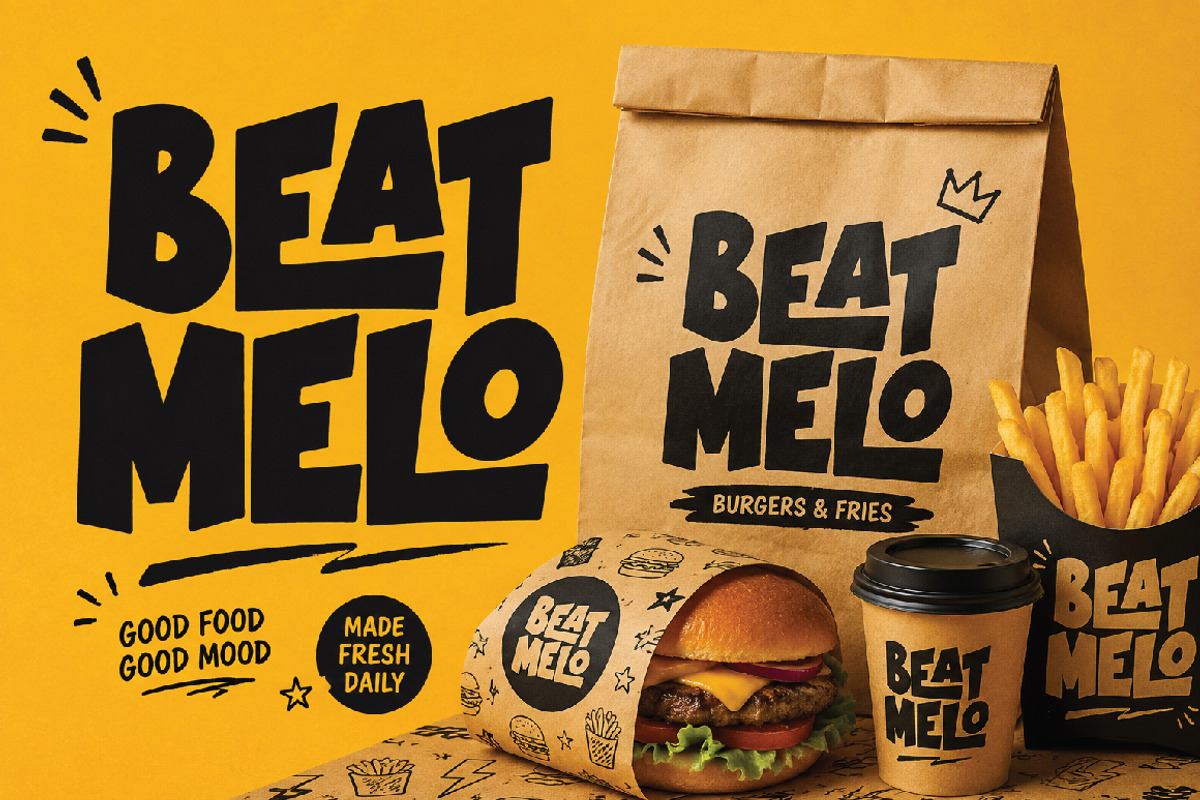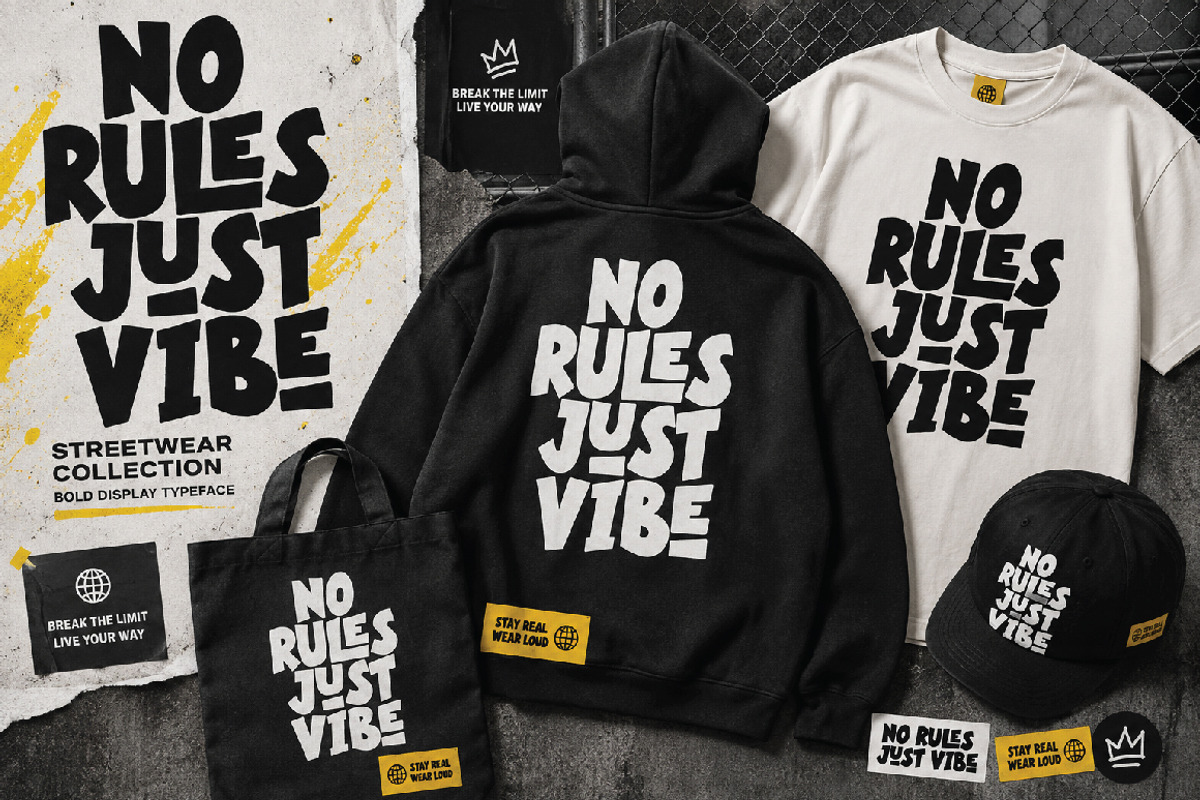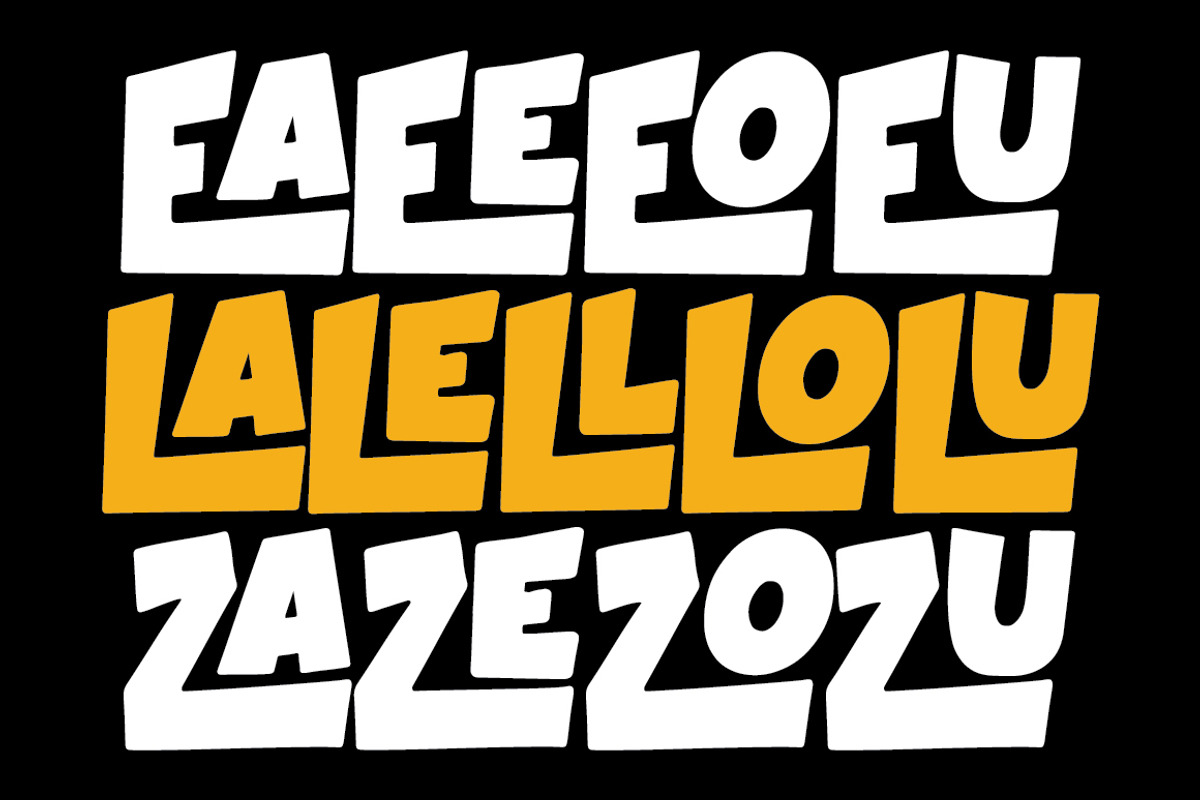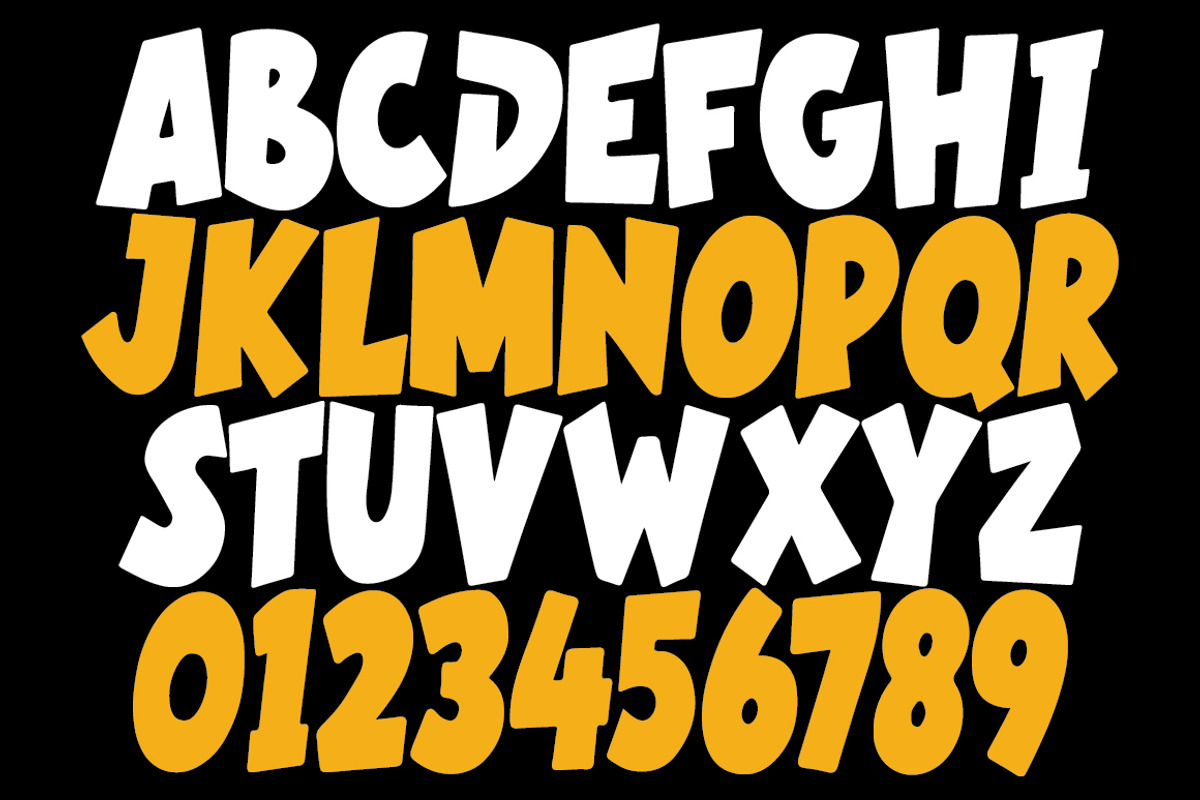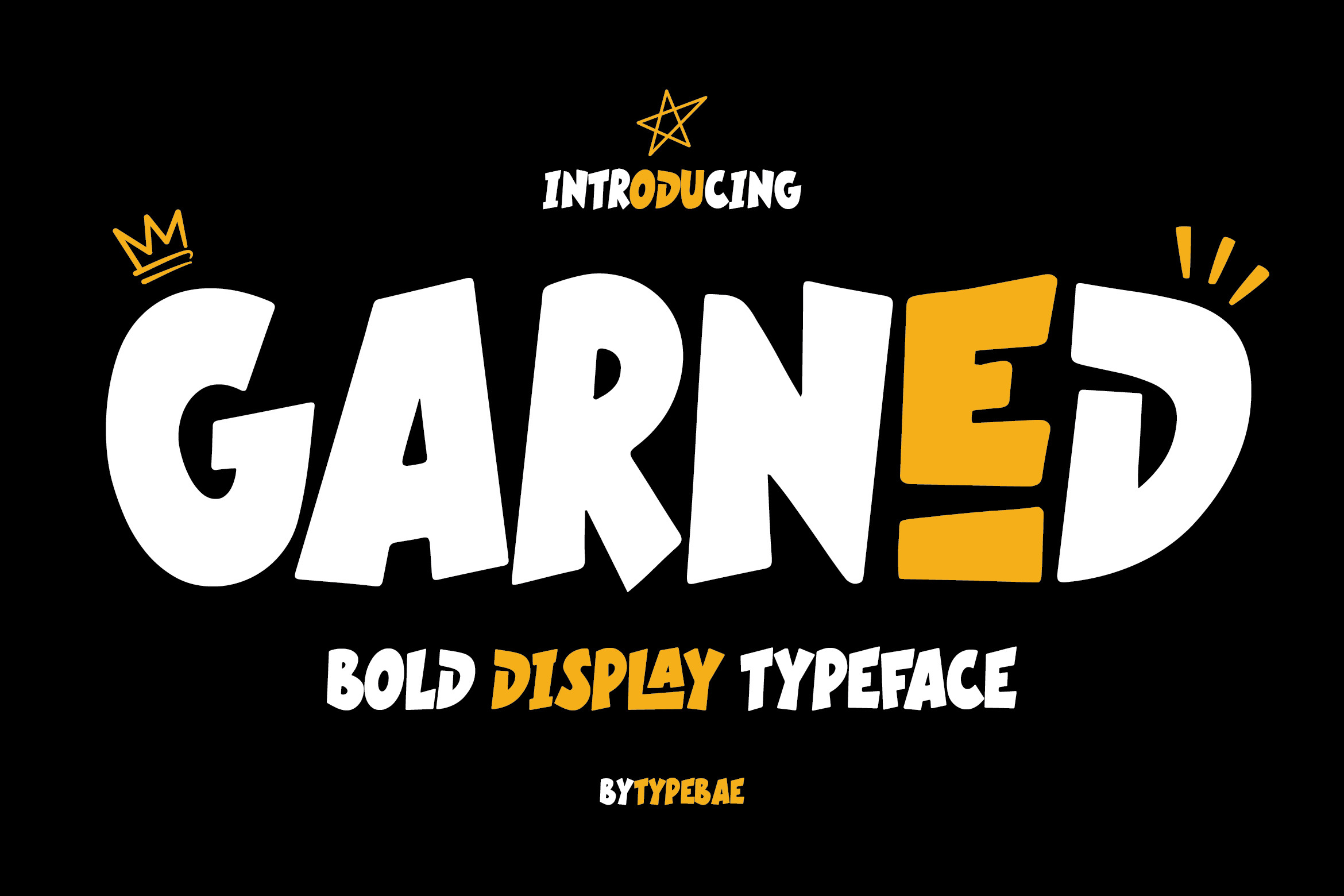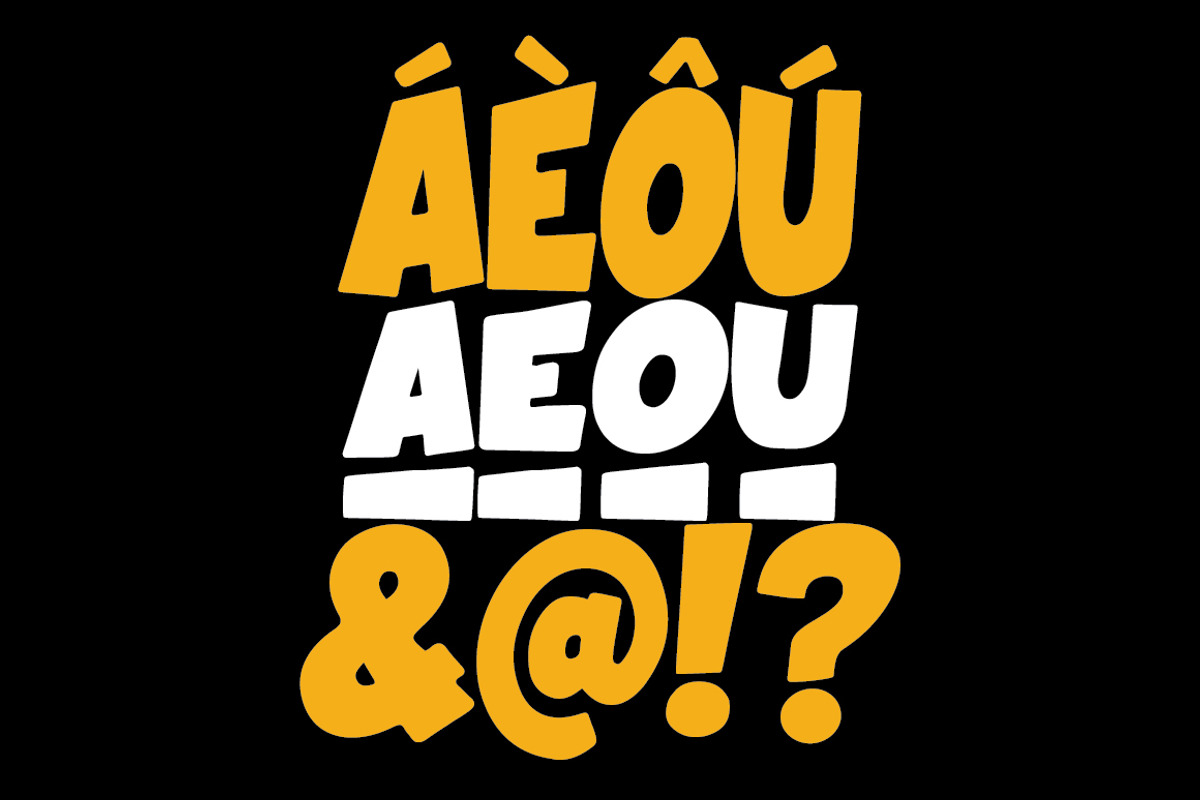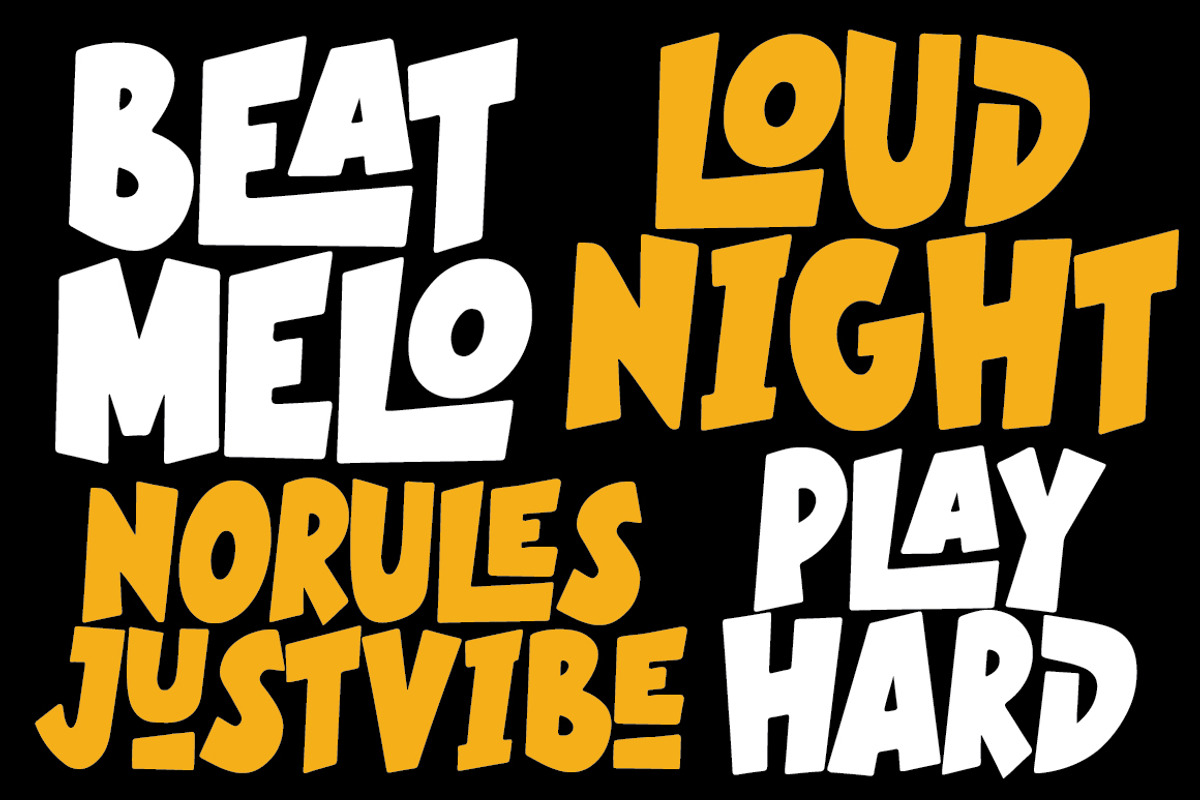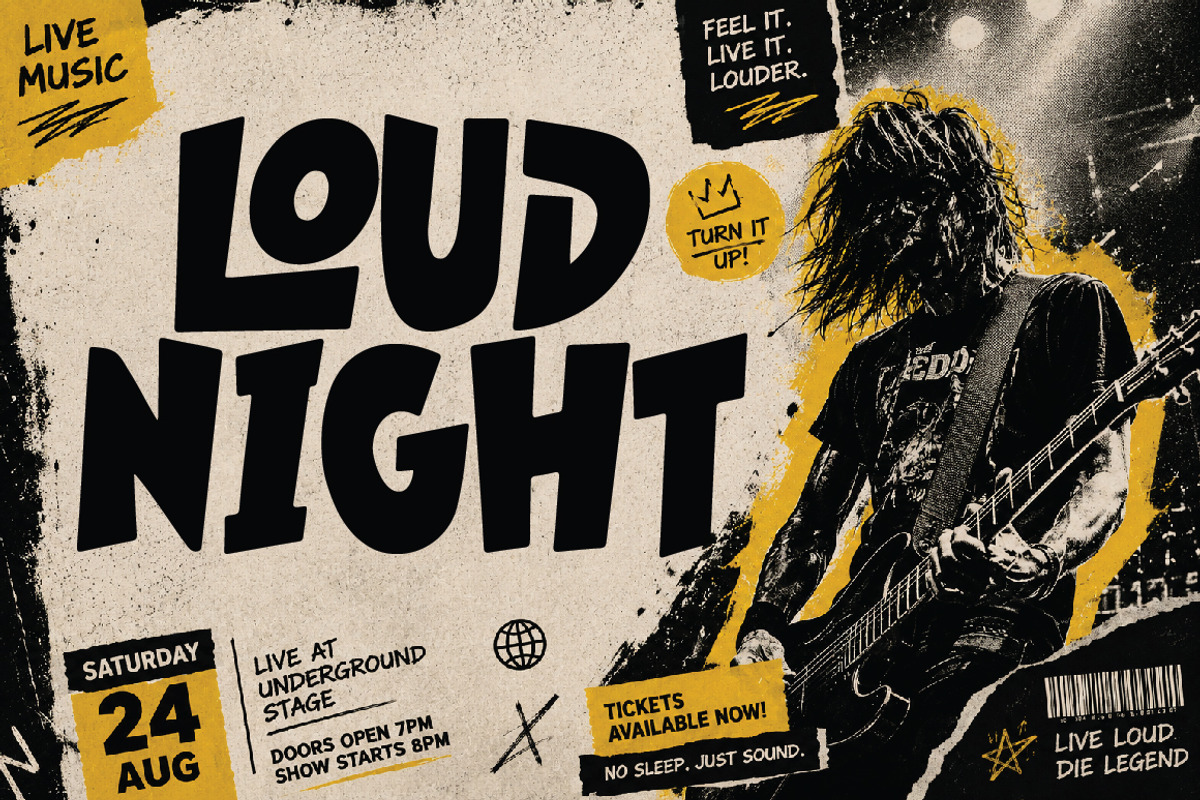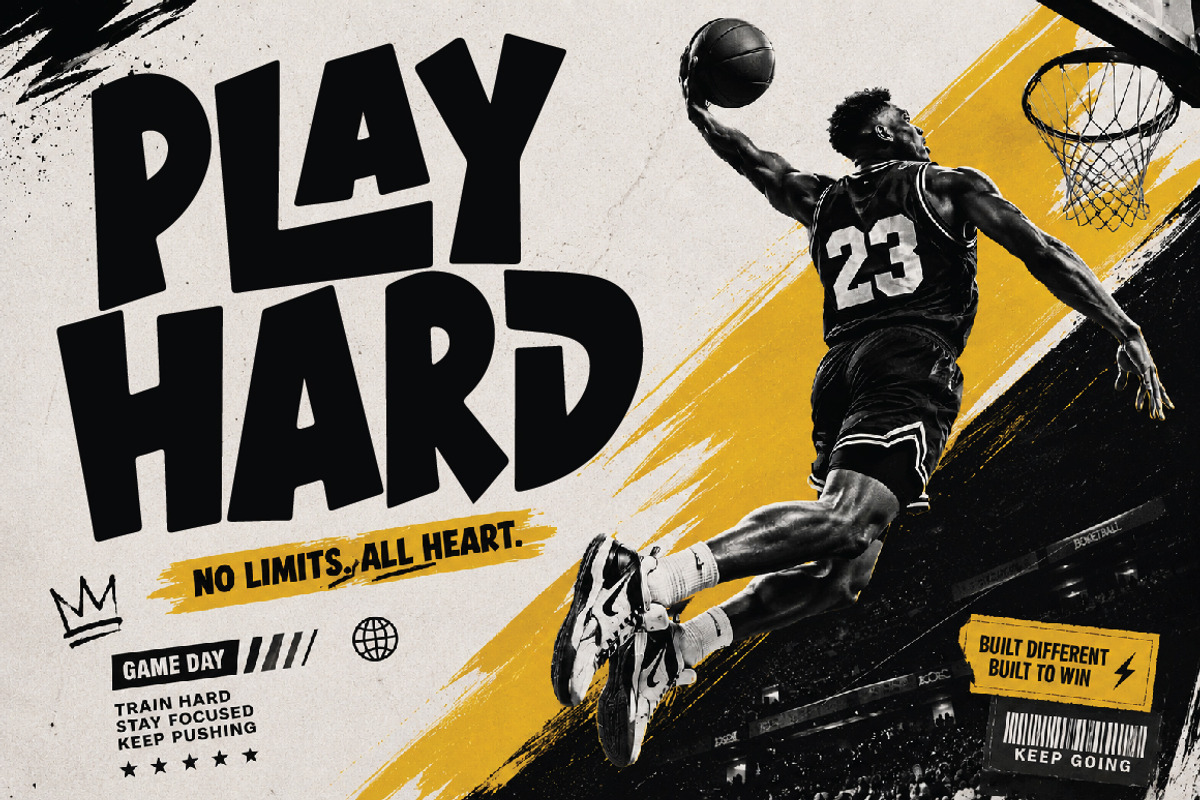
Garned - Bold Display Typeface
Garned is a bold and playful display typeface with chunky, irregular letterforms, unexpected angles, and a slightly slanted character. Its expressive shapes are designed to bring strong visual impact to posters, streetwear, sports graphics, music artwork, branding, packaging, advertising, and more.
All Caps and Accented glyphs
Ligatures and Underline Glyphs (AEOU)
Garned is made for bold headlines and expressive designs that need a distinctive personality.